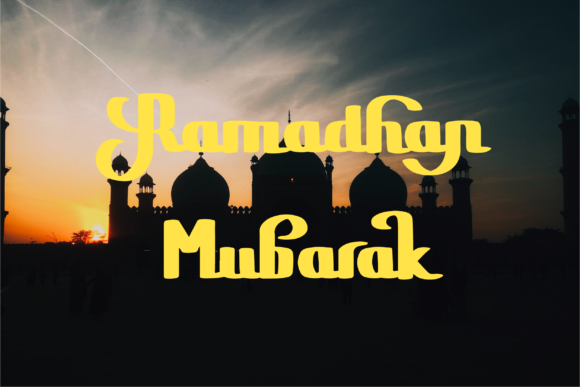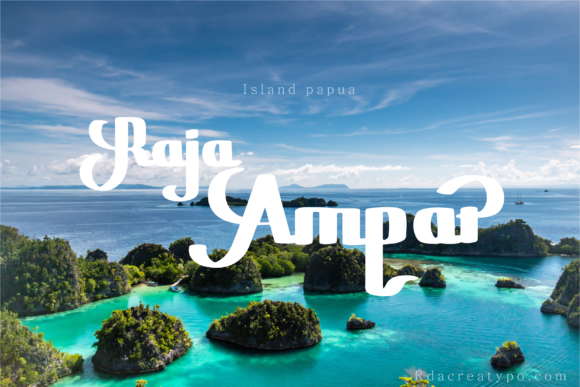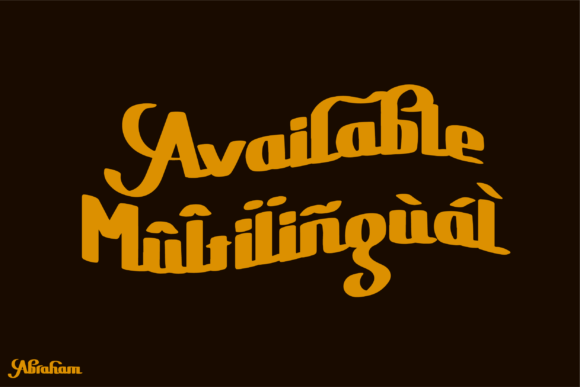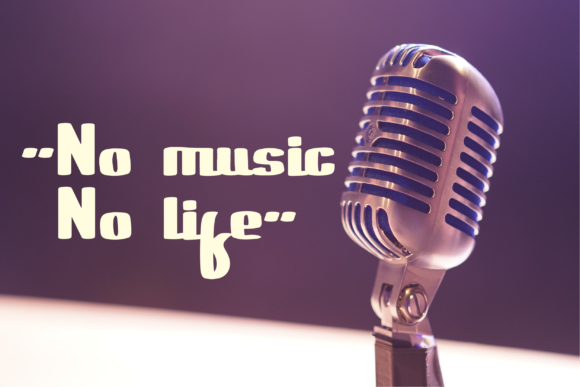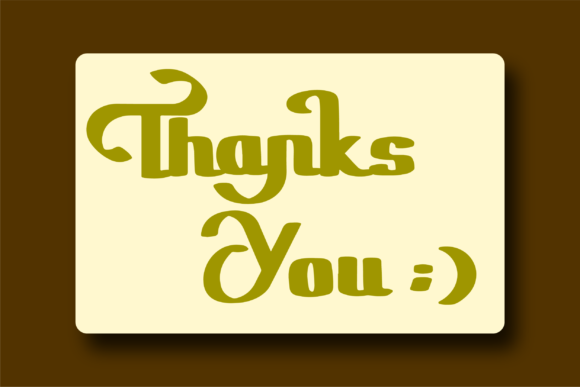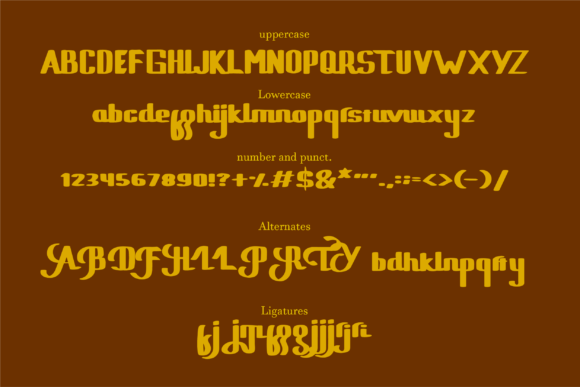
Abraham Font: Elevate Your Designs with Modern Calligraphy
In the world of typography, fonts play a crucial role in conveying the tone and personality of a design. For designers and crafters looking to add a touch of modern elegance to their creations, the Abraham Font is an excellent choice. This bold font, crafted from calligraphy brushes, brings a fresh and contemporary feel to any project it’s applied to.
The Unique Features of Abraham Font
Abraham Font stands out due to its unique creation from calligraphy brushes, which gives it a distinctive, hand-crafted look. This font is not just any ordinary typeface; it’s a tool that can transform your designs, making them more engaging and visually appealing. Whether you’re working on quotes, promotions, Arabic creations, or any other design ideas, Abraham Font is versatile enough to meet your needs.
Suitable for a Variety of Design Projects
One of the key advantages of Abraham Font is its versatility. It’s suitable for a wide range of design projects. Here are a few examples:
- Quotes and Sayings: The bold and modern nature of Abraham Font makes it perfect for quotes and sayings. It can help your message stand out, whether you’re designing for social media, posters, or digital banners.
- Promotions and Advertisements: For promotions and advertisements, grabbing the audience’s attention is crucial. Abraham Font, with its calligraphic flair, can add an element of sophistication and appeal that draws viewers in.
- Arabic Creations: The font’s compatibility with Arabic script makes it a valuable asset for designers working with this language. It provides a modern and clean look that can enhance the readability and aesthetic of Arabic texts.
- Various Other Ideas: Beyond these applications, Abraham Font can be used in a myriad of other design projects, including but not limited to, logo design, packaging, and digital content creation.
Abraham Font is PUA (Private Use Area) encoded, a feature that significantly enhances its usability. PUA encoding allows designers to access all the glyphs and swashes easily. This means you have more creative freedom at your fingertips, enabling you to experiment with different styles and effects without needing additional software or complicated workarounds.
For designers and crafters, Abraham Font offers several benefits:
- Time-Saving: With its comprehensive set of glyphs and swashes, you can save time that would otherwise be spent on creating these elements from scratch.
- Enhanced Creativity: The font’s modern calligraphy style and the ease of use provided by PUA encoding can inspire creativity and help you produce unique designs.
- Professional Results: Even for those without extensive design experience, Abraham Font can help achieve professional-looking results. Its bold and elegant appearance can elevate your designs, making them suitable for both personal and commercial projects.
Abraham Font is a powerful tool for anyone looking to add a modern touch to their designs. Its creation from calligraphy brushes, combined with its PUA encoding, makes it both versatile and easy to use. Whether you’re a professional designer or a crafter looking to enhance your projects, Abraham Font is an excellent choice. By incorporating this bold and elegant font into your design toolkit, you can create visually stunning projects that capture attention and convey your message effectively.
With Abraham Font, the possibilities are endless. Dive in, and discover how this modern calligraphy font can transform your designs.